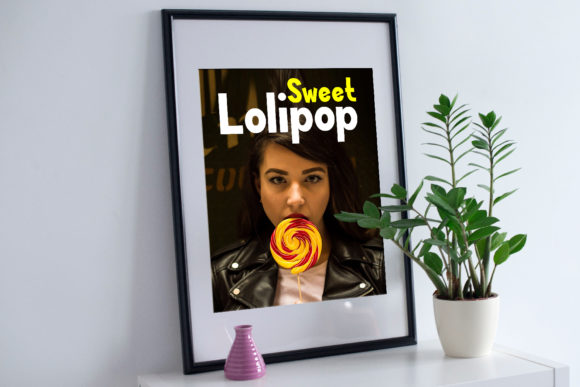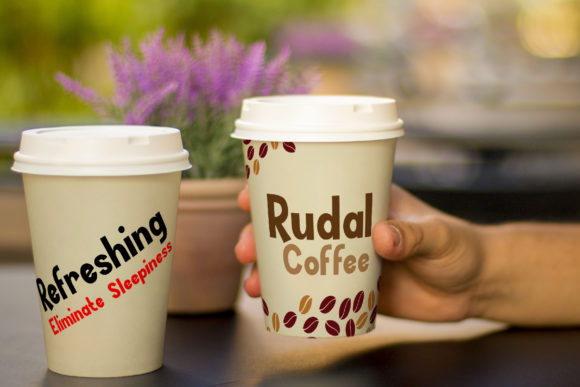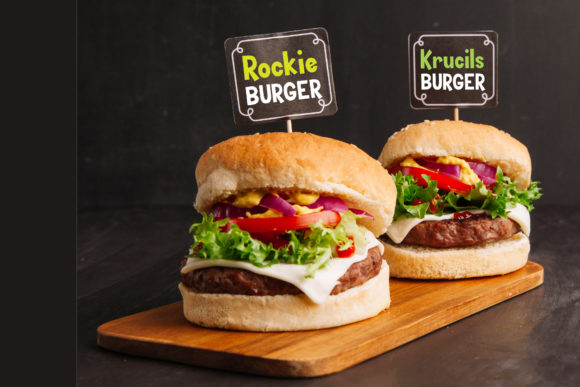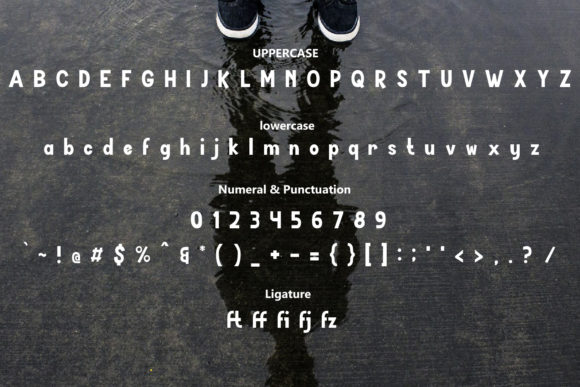
HomeScript FontsKaleng Font Script Fonts Kaleng Font FacebookXPinterestWhatsApp Kaleng Font Poster 2 Kaleng Font Poster 3 Kaleng Font Poster 4 Kaleng Font Poster 5 About Kaleng Font Kaleng is a simple and playful sans serif font with a modern feel. Get inspired by its unique charm! DOWNLOAD ON CREATIVE FABRICAThis font is sold and delivered by Creative Fabrica. Font Canyon may earn a commission if you buy through this link. People also explored Rustgia Font Mayville JNL Font Hey Vintage Font Atomique Font Strakle Font Loved Font Mentawally Font Anjhala Font Blondy Font 349 0 TagsKaleng Font Previous articleLegiante FontNext articleScoutline Font LEAVE A REPLY Cancel reply Comment: Please enter your comment! Name:* Please enter your name here Email:* You have entered an incorrect email address! Please enter your email address here Website: Save my name, email, and website in this browser for the next time I comment. Personal Use Free The Kingdom Personal Use Free Read more about this font Lazy Sunday Personal Use Free Read more about this font Eigha Personal Use Free Read more about this font Roland Personal Use Free Read more about this font BLOG Transform Your Website: Elevate Your Typography with 7 Best Web Font Generators Are you ready to transform your website's typography from ordinary to extraordinary? Great! Today, we're diving into the world of web font generators, which... How to Install and Use Fonts on Windows, macOS, and Web Projects Free vs Paid Fonts: Why Investing in Premium Fonts Is Worth It Top 7 Google Fonts Alternatives for Faster and Privacy-Friendly Web Design (2025)